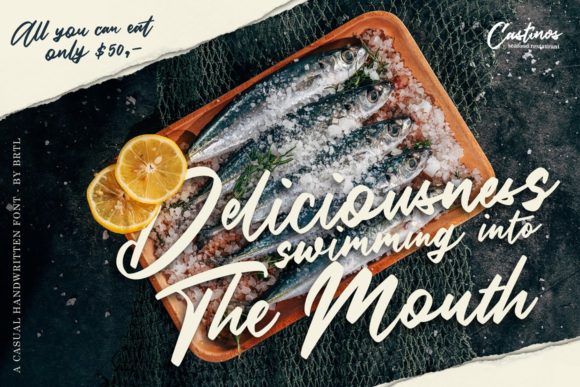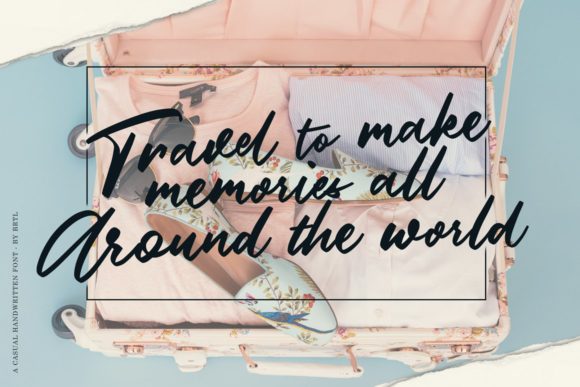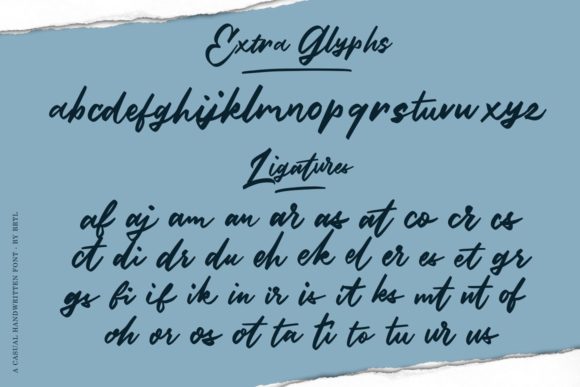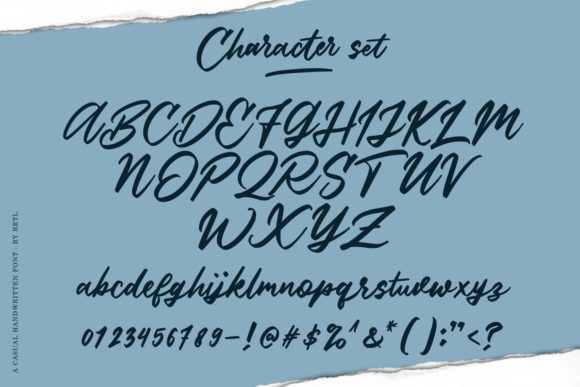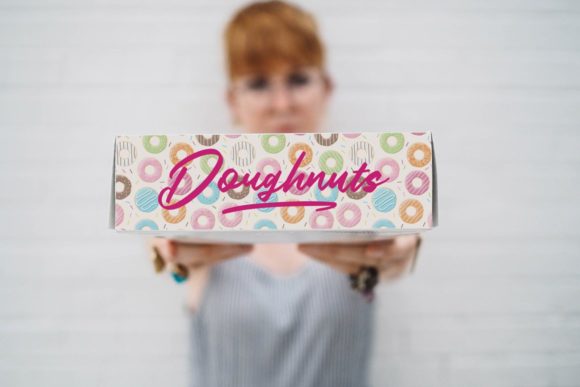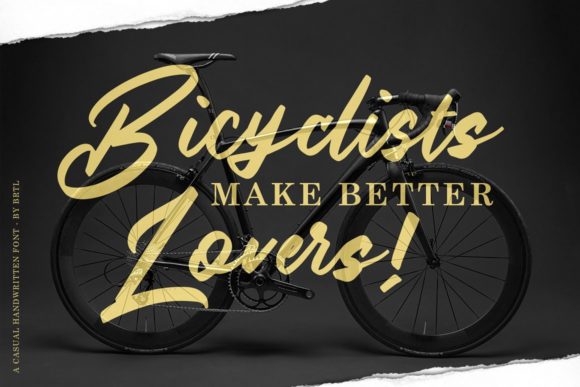
Introducing Castinos Font: A Beautiful Script with a Charming Curve
Are you looking for a font that can add a touch of elegance and whimsy to your designs? Look no further than Castinos Font, a stunning script font that is sure to capture your heart. With its charming curve and shaky bottom line, Castinos is the perfect choice for designers and crafters who want to create beautiful and eye-catching projects.
What Makes Castinos Font So Special?
Castinos Font is a beautifully designed script font that features a unique and charming curve. The font’s shaky bottom line adds a touch of whimsy and playfulness, making it perfect for creating gorgeous wedding invitations, beautiful stationary art, and eye-catching social media posts. Whether you’re a designer, crafter, or DIY enthusiast, Castinos Font is a versatile and elegant choice that is sure to impress.
One of the best things about Castinos Font is its incredible versatility. This font can be used for a wide range of projects, from formal wedding invitations to fun and playful social media posts. The font’s elegant and cursive style makes it perfect for creating beautiful stationary art, while its whimsical and playful touch makes it ideal for creating eye-catching graphics and posters.
Castinos Font is perfect for designers and crafters who want to add a touch of elegance and whimsy to their projects. Whether you’re creating wedding invitations, stationary art, or social media posts, this font is sure to impress. With its versatile style and easy-to-use features, Castinos Font is a must-have for any designer or crafter looking to take their designs to the next level.
Ideas for Using Castinos Font
So, how can you use Castinos Font in your designs? Here are a few ideas to get you started:
- Create gorgeous wedding invitations that will impress your clients and their guests.
- Design beautiful stationary art that will add a touch of elegance to any room.
- Make eye-catching social media posts that will grab the attention of your followers.
- Create stunning posters and graphics that will showcase your brand’s personality.
- Design unique and personalized gifts, such as mugs, t-shirts, and tote bags.
Tips for Getting the Most Out of Castinos Font
To get the most out of Castinos Font, here are a few tips to keep in mind:
- Experiment with different font sizes and styles to find the perfect look for your project.
- Use the font’s built-in features, such as ligatures and swashes, to add a touch of elegance and whimsy to your designs.
- Pair Castinos Font with other fonts to create a unique and eye-catching look.
- Don’t be afraid to get creative and try new things – Castinos Font is a versatile and forgiving font that can handle a wide range of design styles.
In conclusion, Castinos Font is a beautiful and versatile script font that is perfect for designers and crafters who want to add a touch of elegance and whimsy to their projects. With its charming curve and shaky bottom line, Castinos Font is sure to capture your heart and inspire your creativity. Whether you’re creating wedding invitations, stationary art, or social media posts, Castinos Font is a must-have font that is sure to impress.